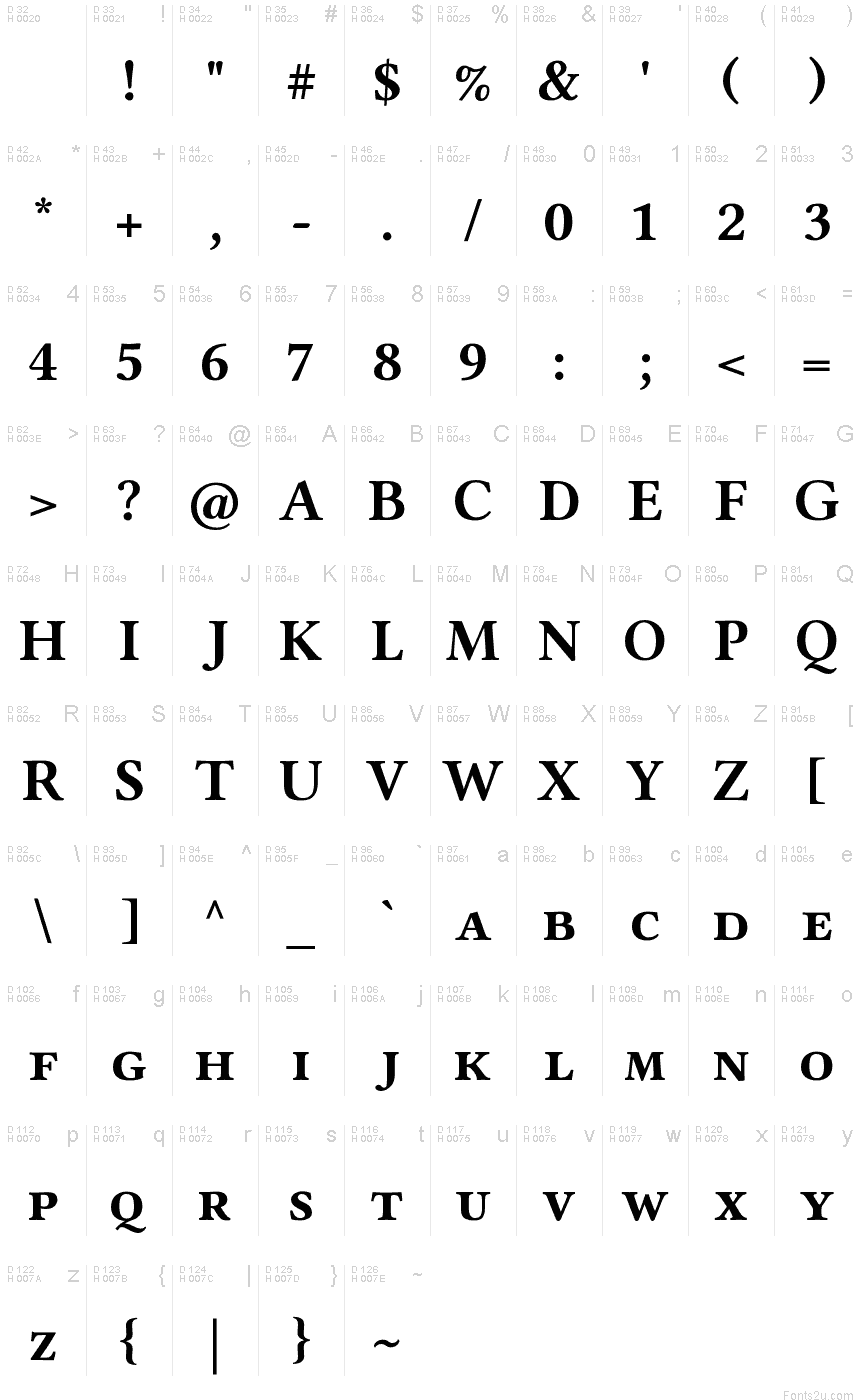
Linux Libertine Capitals Bold by Philipp H. Poll is a free classical serif font with stately Roman proportions and pronounced thick-to-thin contrast. Its capitals combine broad rounded forms with narrower letters, crisp tapered serifs, and gently modeled curves that keep the line formal without looking rigid.
Cultural institutions, publishers, and heritage brands could use it for an authoritative identity across book covers, exhibition posters, and museum signage. The carved-stone flavor of the serifs also suits historical events and classical music programs, where the lettering can echo architectural details and engraved ornament.